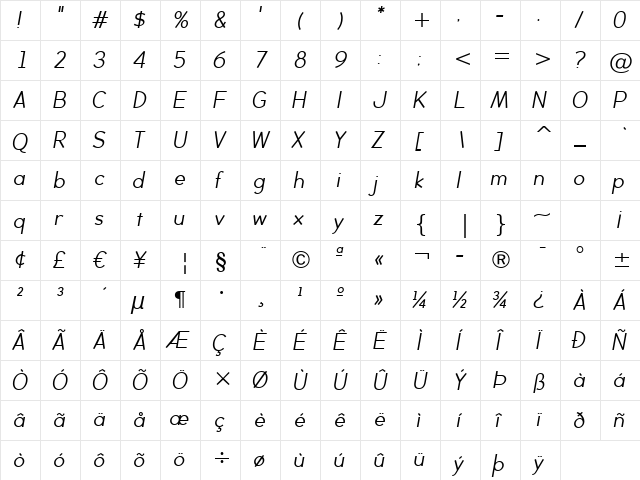
BacktalkSans BTN Oblique
Design Context for BacktalkSans BTN Typeface
BacktalkSans BTN takes a measured approach to typography — its balanced proportions and neutral character make it a reliable workhorse for both digital and print work. Its italic angle brings a sense of urgency and motion to the letterforms.
Pro Tip: Try BacktalkSans BTN for annotation and caption copy alongside an upright companion — the contrast in angle creates a dynamic but ordered typographic system.